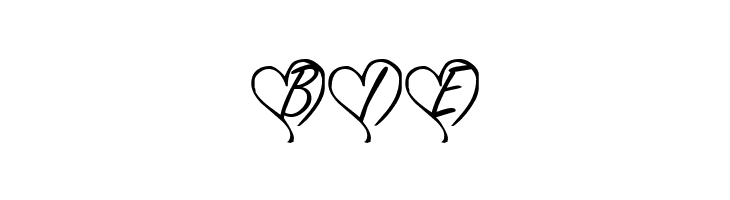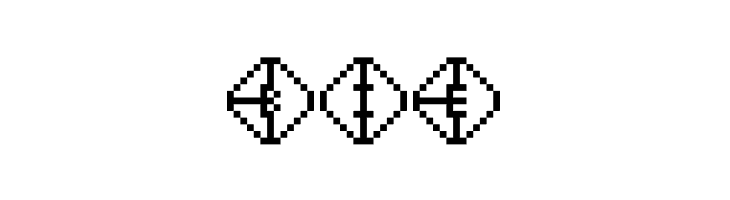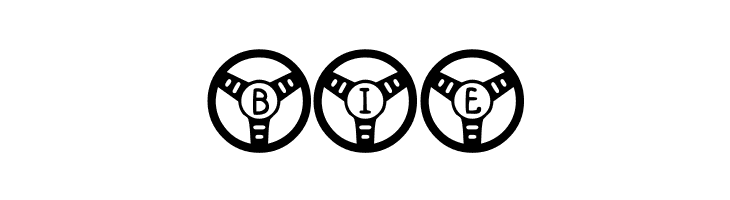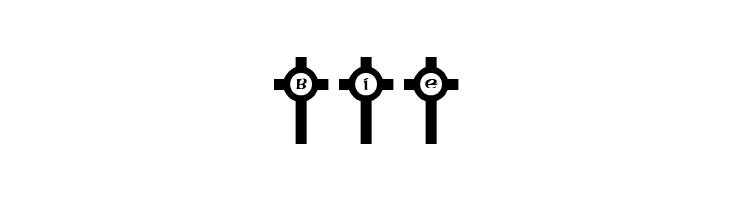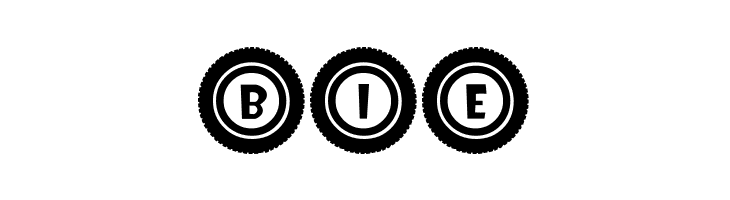
A playful, football-themed font with bold characters enclosed in football shapes, ideal for sports projects.
A romantic script font with each letter enclosed in a heart shape.
Bold, blocky font with enclosed characters for a modern look.
A futuristic, geometric font with blocky, uniform letterforms enclosed in squares.
A playful font with characters enclosed in steering wheels, perfect for automotive-themed designs.
A decorative font with characters enclosed in Celtic crosses, blending tradition with modern style.
A bold, decorative font with letters enclosed in tire-like circles.
A playful font with characters enclosed in alarm clock designs, ideal for creative projects.